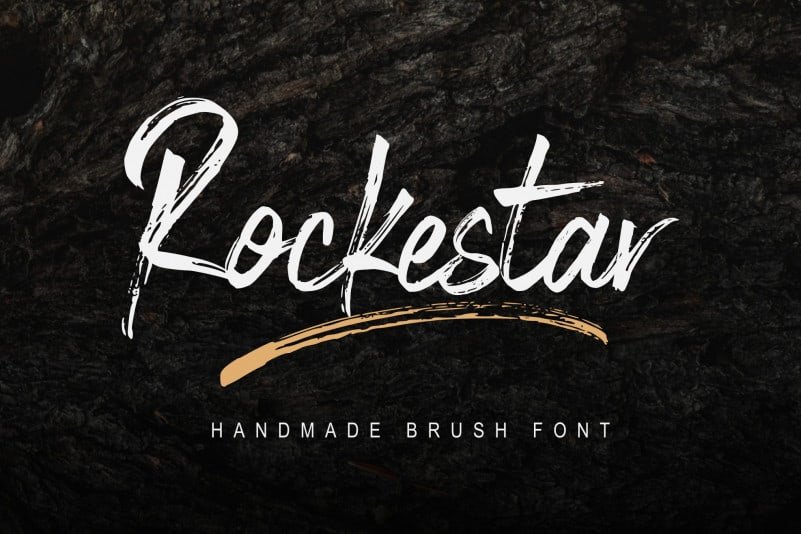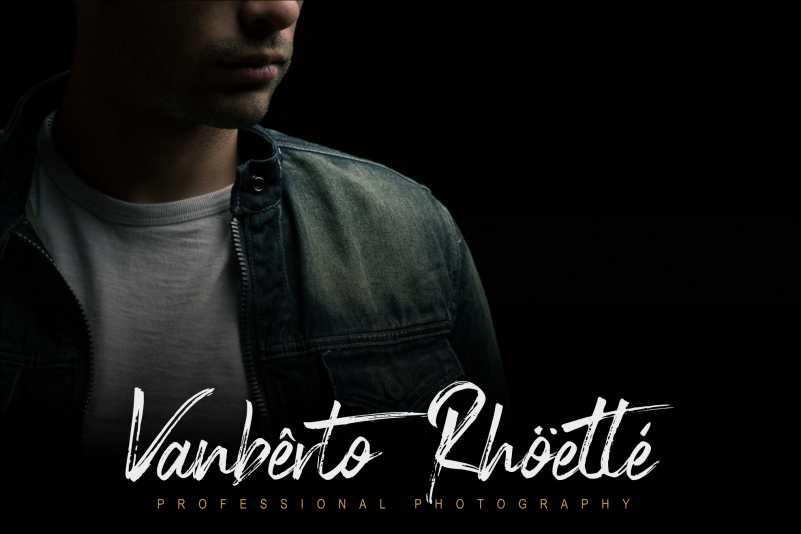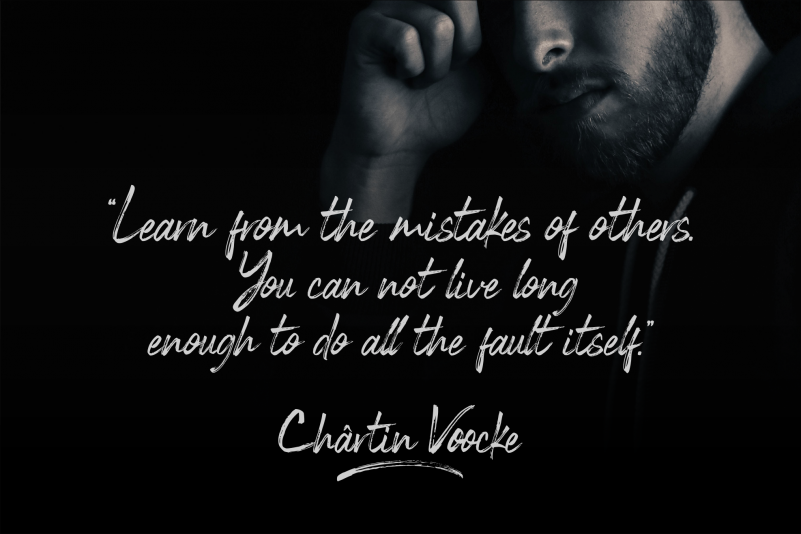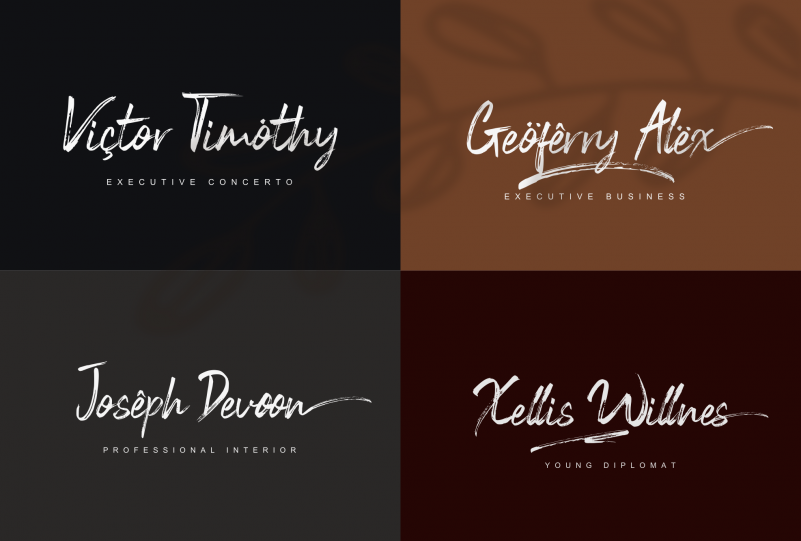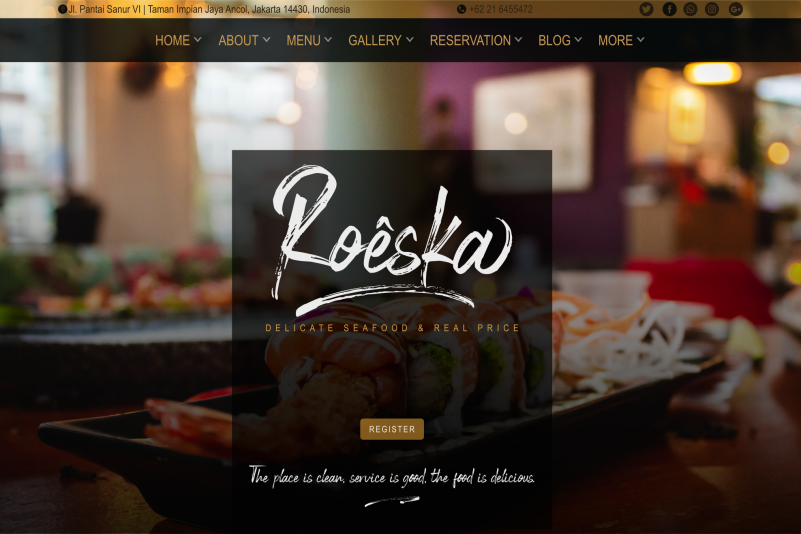
Rockestar Brush Font
The Rockestar is a textured brush font with a contemporary design style. Made with a brush on paper, then scanned and carefully drawn into vector format. It has a charming, authentic and relaxed feeling and is perfect for adding a natural touch to your design. Fall in love with unique and authentic letters!